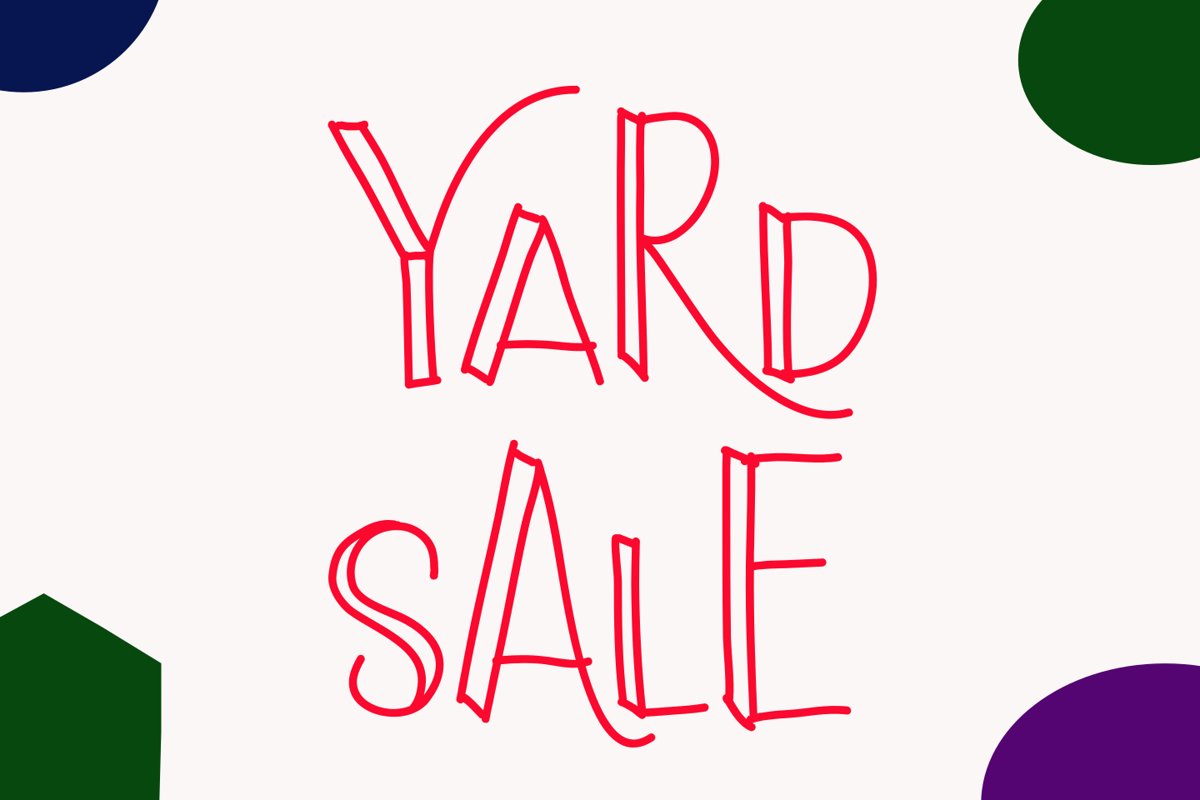
Yard Sale
yard sale is a cute and playful font. just combine between uppercase, lower case, and its alternate to achieve cheerful design. also, it supports multilingual.very suit for your fun and cute design.